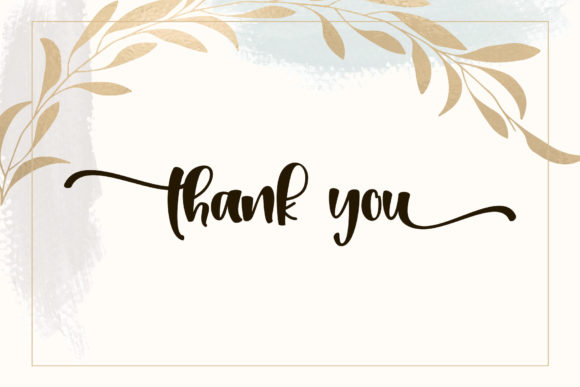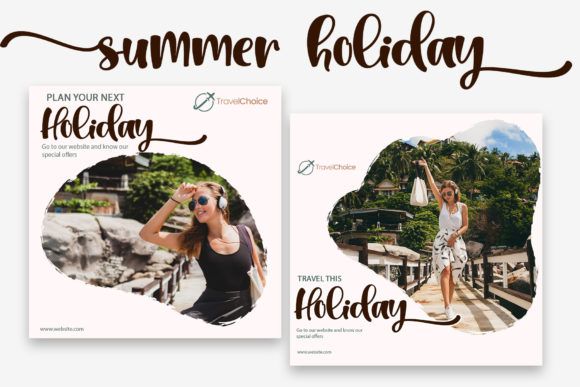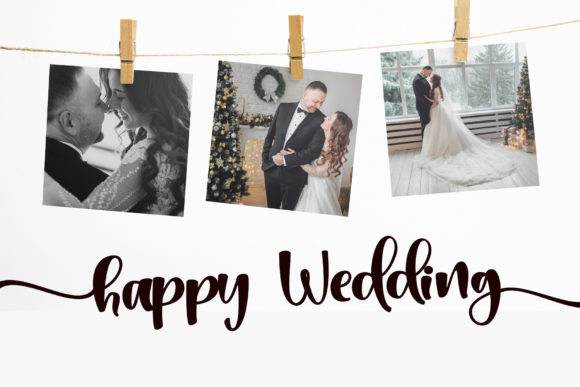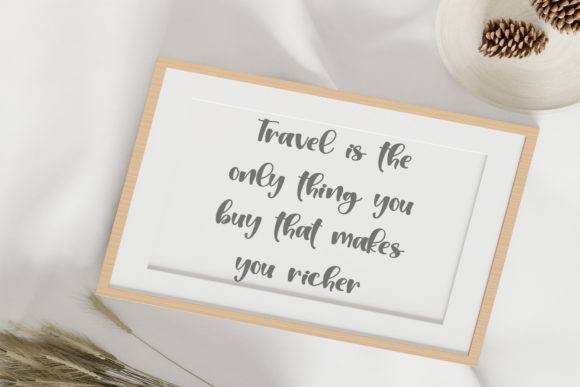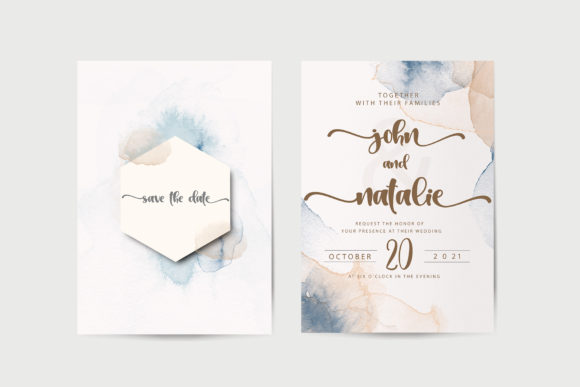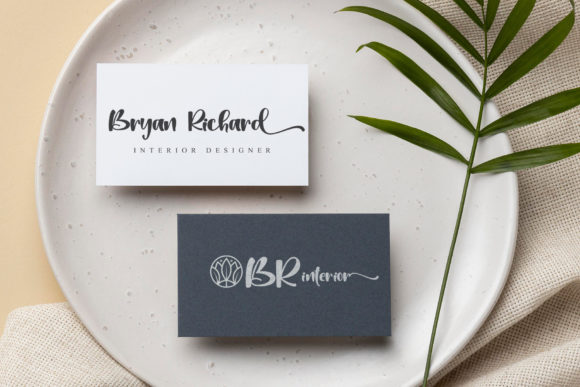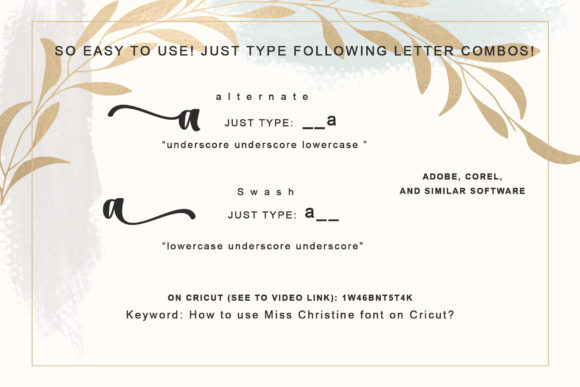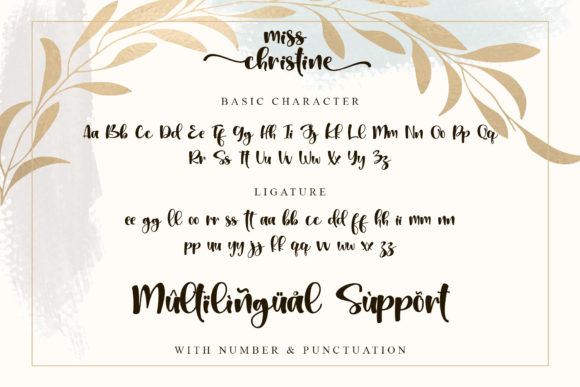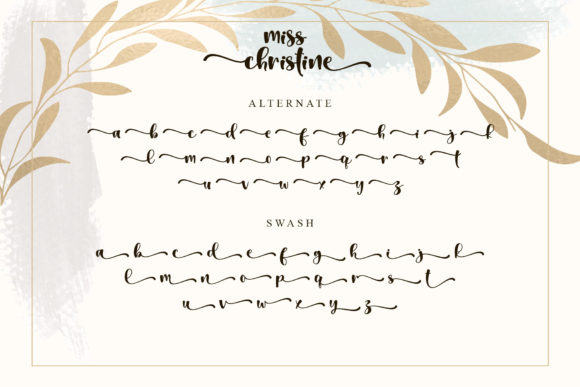
About Miss Christine Font
Miss Christine is a lovely and timeless handwritten font. Every letter has a unique and beautiful touch, which will make your design come alive! Miss Christine is PUA encoded which means you can access all of the glyphs and swashes with ease!